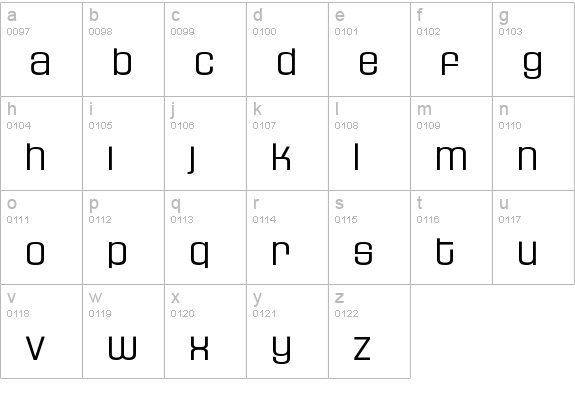
HouseGothicHG23Ext LIGHT2 is a refined, elegant variant in the HouseGothicHG23Ext typeface family \xE2\x80\x94 well suited to elegant body text, refined sub-headings, and luxury branding.
HouseGothicHG23Ext LIGHT2 font is a modern and stylish typeface that exudes sophistication and elegance. With its sleek lines and sharp edges, this font is perfect for creating eye-catching designs that demand attention. The light weight of the font adds a touch of delicacy while still maintaining a strong presence on the page. Whether you're working on branding materials, editorial layouts, or web design, HouseGothicHG23Ext LIGHT2 font will elevate your projects to the next level. Its versatility allows it to be used in a variety of contexts, making it a valuable addition to any designer's toolkit. And the best part? HouseGothicHG23Ext LIGHT2 font is available for free download at FontsMarket.com. So you can start using this stunning font in your projects without any cost. Don't miss out on this opportunity to enhance your designs with the sleek and modern aesthetic of HouseGothicHG23Ext LIGHT2 font.